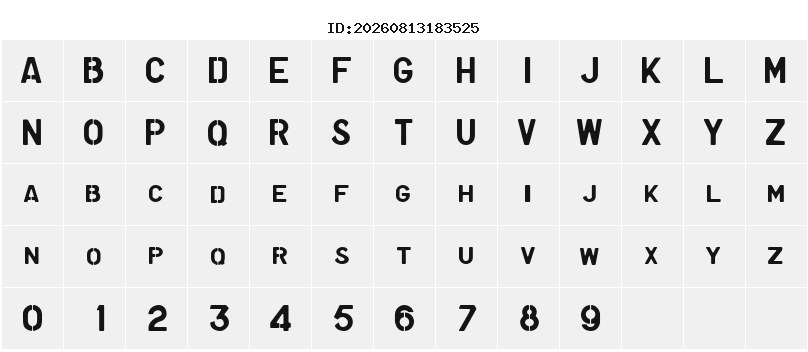
stency Preview
• Font Name: stency
• Font ID: Macromedia Fontographer 4.1.5 stency
• Full Font Name: stency
• Version: Macromedia Fontographer 4.1.5 12/6/03
• PostScript Name: Stency
• Character Count: 90
• Copyright: Copyright 2003. Tee‐wat. stency
About stency.ttf
stency.ttf is a modern, elegant sans-serif font designed for ultimate readability and visual harmony. Perfect for branding, headlines, web design, and print materials.